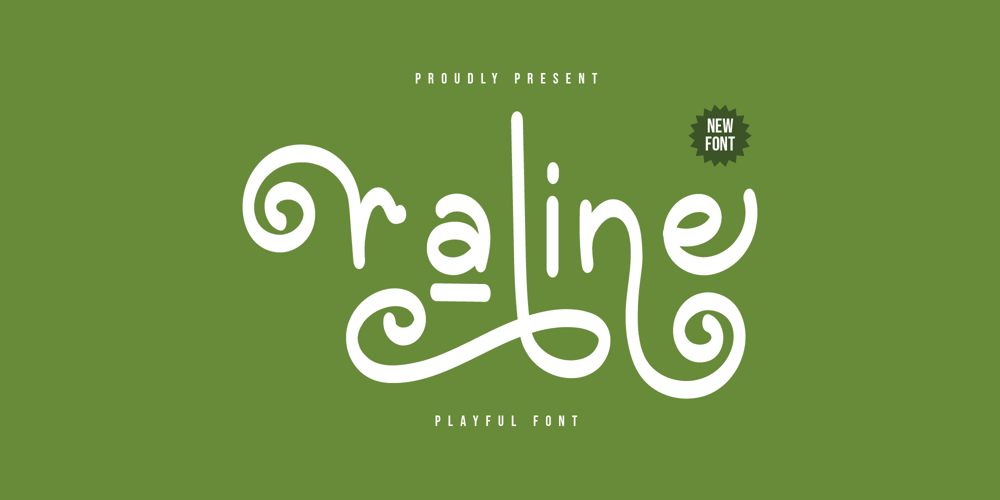
Raline Font Family was designed by Hilman Ruslan and published by Vicka Type. Raline contains 2 styles and family package options. Raline – Playful Font, from Vicka Type, is a premium Playful Font, suitable for any projects such as: logos, branding projects, homeware designs, product packaging, mugs, quotes, posters, shopping bags, t-shirts, book covers, name card, invitation cards, greeting cards, label, photography, watermark, special events, and all your other luxury projects that need a premium signature taste.============================================================What’s Included :Raline Web FontLigature, Alternate & SwashesWorks on PC & MacSimple installationsAccessible in the Adobe Illustrator, Adobe Photoshop, Adobe InDesign, even work on Microsoft Word.PUA Encoded Characters – Fully accessible without additional design software.Fonts include support for 65 languages ; Afrikaans, Albanian, Asu, Basque, Bemba, Bena, Breton, Catalan, Chiga, Cornish, Danish, Dutch, English, Faroese, Filipino, French, Friulian, Galician, German, Gusii, Indonesian, Irish, Italian, Kabuverdianu, Kalenjin, Kinyarwanda, Luo, Luxembourgish, Luyia, Machame, Makhuwa-Meetto, Makonde, Malagasy, Manx, Morisyen, North Ndebele, Norwegian Bokmål, Norwegian Nynorsk, Nyankole, Oromo, Portuguese, Quechua, Romansh, Rombo, Rundi, Rwa, Samburu, Sango, Sangu, Scottish Gaelic, Sena, Shambala, Shona, Soga, Somali, Spanish, Swahili, Swedish, Swiss, German, Taita, Teso, Uzbek (Latin), Volapük, Vunjo, Zulu,============================================================